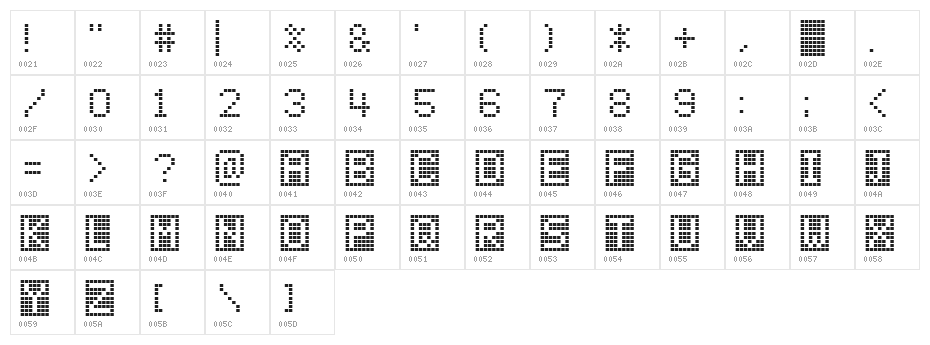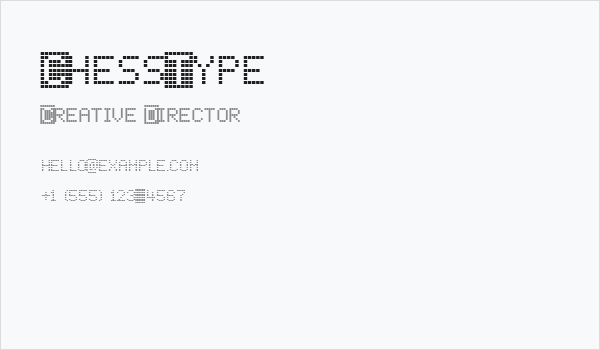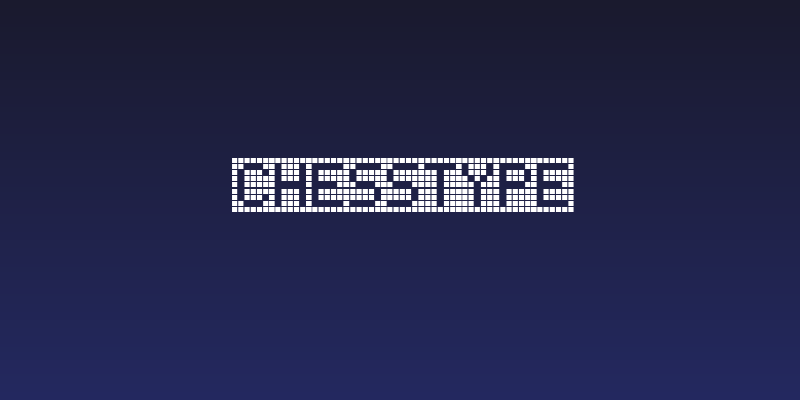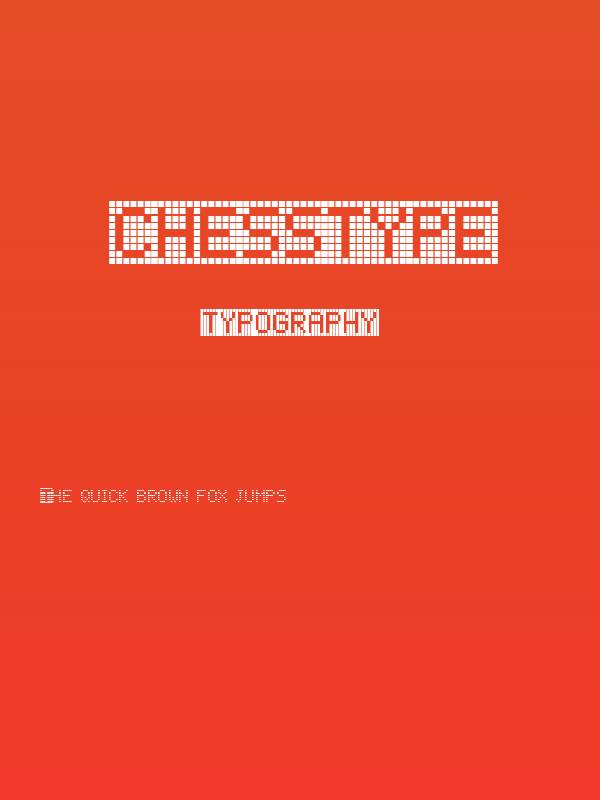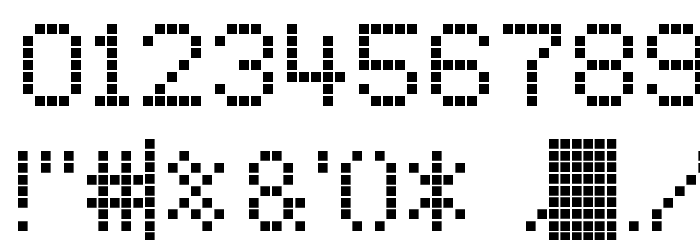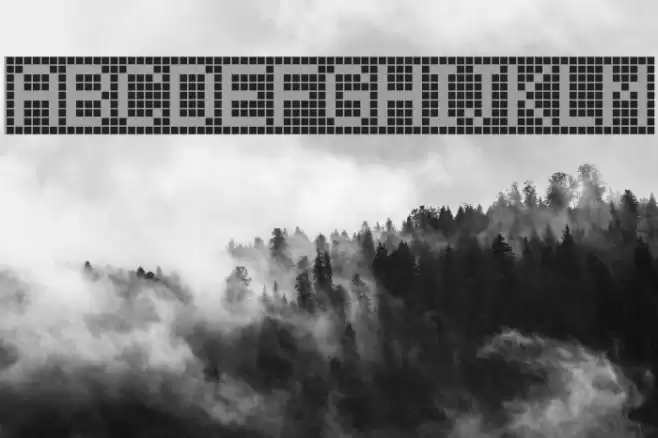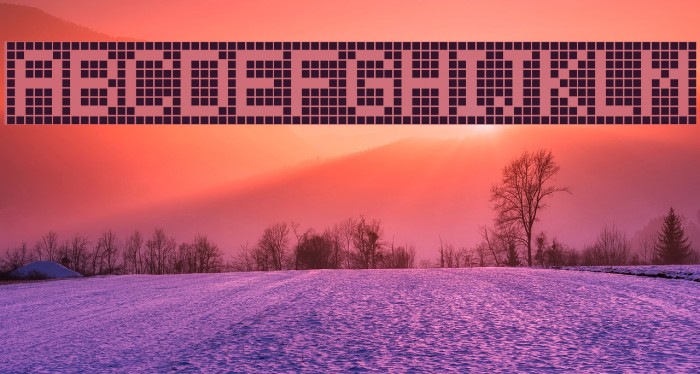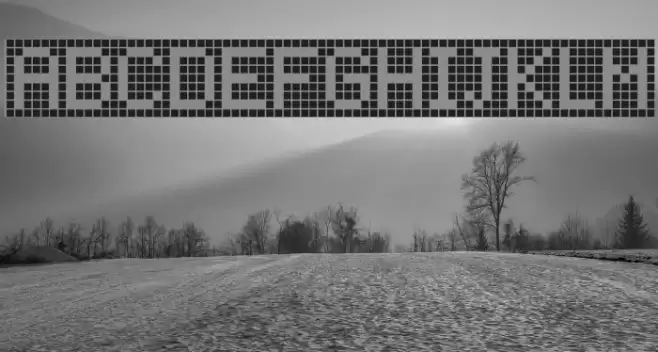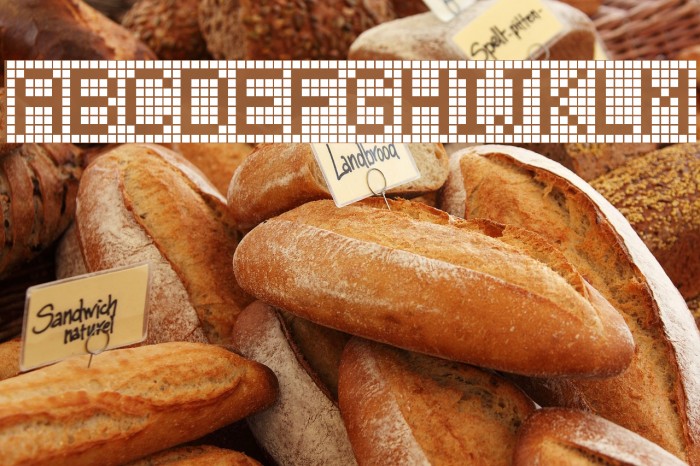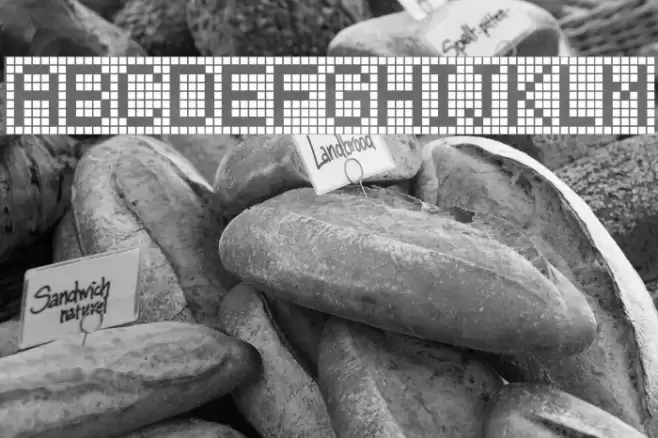
ChessType Font
| Kategorien | Pixel |
| Gesamtstil | Retro, Digital |
| Anwendungsfall | Logos, Headlines, Digital interfaces |
| Vorgeschlagene Projekte | Perfect for video game design, digital art, retro-themed posters, and tech-related branding. |